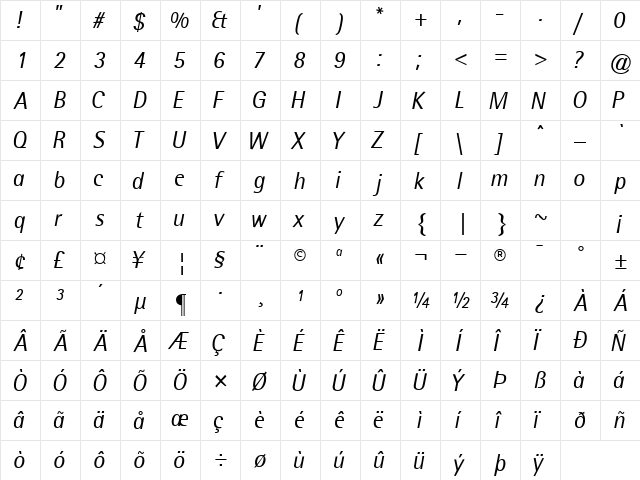
LibreSemiSansSSK Italic
Design Context for LibreSemiSansSSK Typeface
LibreSemiSansSSK takes a measured approach to typography — its balanced proportions and neutral character make it a reliable workhorse for both digital and print work. The slanted form adds forward momentum and visual energy.